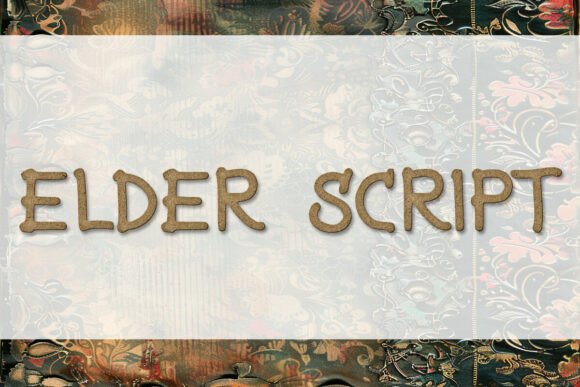
Elder Script: The Ancient Typeface for Modern Brands
There’s a particular feeling you get when you look at something that feels truly old—not just aged, but storied. It’s the weight of a leather-bound book, the grain of a weathered oak table, the quiet authority of a stone inscription. This is the exact feeling the Elder Script font captures. It’s more than a typeface; it’s a direct line to a world of legend, history, and grounded wisdom, designed for creators who want their work to carry that same timeless resonance.
A Typeface Carved from Legend
Elder Script isn't your typical script font or a delicate, flowing calligraphy. Its personality is robust and rustic. Imagine letters hewn from ancient bark or chiseled into stone—that’s the visual texture at its core. The forms are organic and slightly irregular, embracing the beautiful imperfections of handcraft. This isn't a sterile, digital creation; it has a weathered, tactile quality that feels authentic and deeply human. The slight irregularities in its letterforms are a strength, not a weakness, as they prevent the design from feeling overly polished or artificial.
As a premium font, its value lies in this unique character. It occupies a special niche, far from the clean lines of modern sans serif fonts or the formal elegance of traditional serif typefaces. Elder Script is a display font, meaning it’s built for impact at larger sizes, making it perfect for headlines, logos, and titles where its detailed texture can truly be appreciated. Its personality speaks of mystery, nature, and enduring stories.
Where Ancient Charm Meets Modern Application
The true test of a creative font is its versatility. Where does a typeface like Elder Script, with such a strong and specific vibe, actually work? The answer is in any project that needs to convey authenticity, depth, and a connection to the past or the natural world.
Branding & Logo Design
For brand identity, Elder Script is a powerhouse for specific niches. Think of the logo for an artisanal woodworker, a small-batch distillery, or a leather goods maker. The font immediately communicates craftsmanship, heritage, and quality materials. It’s equally at home in mystical branding—logos for tarot readers, herbalists, apothecaries, and spiritual coaches. The font’s old-world charm lends an air of established wisdom and mystery, helping a brand feel credible and deeply rooted in its practice.
Editorial & Packaging Design
In editorial design, Elder Script can transform a book cover. For fantasy novels, historical fiction, or even poetry collections, it sets a powerful tone before a single word of the story is read. It’s a natural fit for museum branding, documentary titles, and magazine features on history or nature. When it comes to packaging design, this typeface shines on products that want to tell a story. Imagine it on labels for gourmet preserves, specialty coffee, or artisanal cheese. The font’s tactile appearance suggests a product made with care, using time-honored methods.
Digital & Print Assets
Beyond the physical, Elder Script is a fantastic tool for digital creators. It makes for stunning social media graphics, adding a layer of sophistication to Instagram quotes or YouTube thumbnails. Designers can use it in digital papers, planners, and overlays to create assets with a unique, handmade feel. For the spooky season, it elevates Halloween decor from kitschy to classy, perfect for high-end party invitations or sophisticated printable wall art. Even in web design, a single use of Elder Script for a main headline on a hero banner can create a dramatic and memorable first impression.
Practical Guidance for Working with Elder Script
Choosing a font is a strategic decision. To get the most out of Elder Script, consider these practical points.
Testing Readability and Hierarchy
First, remember its nature as a display typeface. Its beautiful, textured details are best viewed at larger sizes. For body text or smaller captions, readability will suffer. The key to a successful layout is pairing it with a simpler, more legible font for longer passages. A clean sans serif font or a sturdy, traditional serif font will provide a perfect contrast, allowing Elder Script to command attention in headlines while the companion font handles the details. This contrast creates a clear visual hierarchy, guiding the reader’s eye exactly where you want it.
Choosing the Right Project
Evaluate your project’s personality. Is your brand modern, minimalist, and tech-focused? Elder Script is likely not the right fit. But if your brand values tradition, nature, mystery, or handcrafted quality, it’s an outstanding choice. Look at your existing design assets. Does it pair well with your photography style or hand-drawn illustrations? The font’s organic feel complements other natural textures beautifully, such as paper grain, wood, stone, and earthy color palettes.
Font Pairing and Licensing
When testing font pairings, try combining Elder Script with a geometric sans serif for a balance of ancient and modern. Alternatively, pair it with a humanist serif for a completely classic, storybook feel. Always check the font package to see what styles are included—does it have alternates, ligatures, or numerals that will expand your design options? Finally, for any commercial project, from a client logo to a product you sell, ensure you have the correct commercial license. Using a premium font correctly is a mark of professionalism and protects your work.
Elder Script is more than just letters on a page. It’s a design tool for building worlds, telling stories, and creating brands that feel genuinely timeless. It invites your audience to step into a narrative, to trust in a legacy they can almost feel. For the designer, marketer, or creator looking to add that irreplaceable sense of history and depth to their work, this typeface is an unforgettable ally.